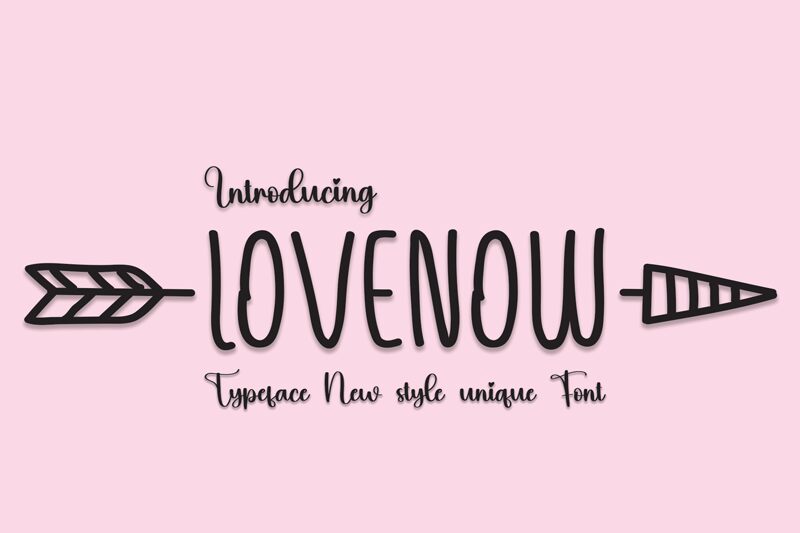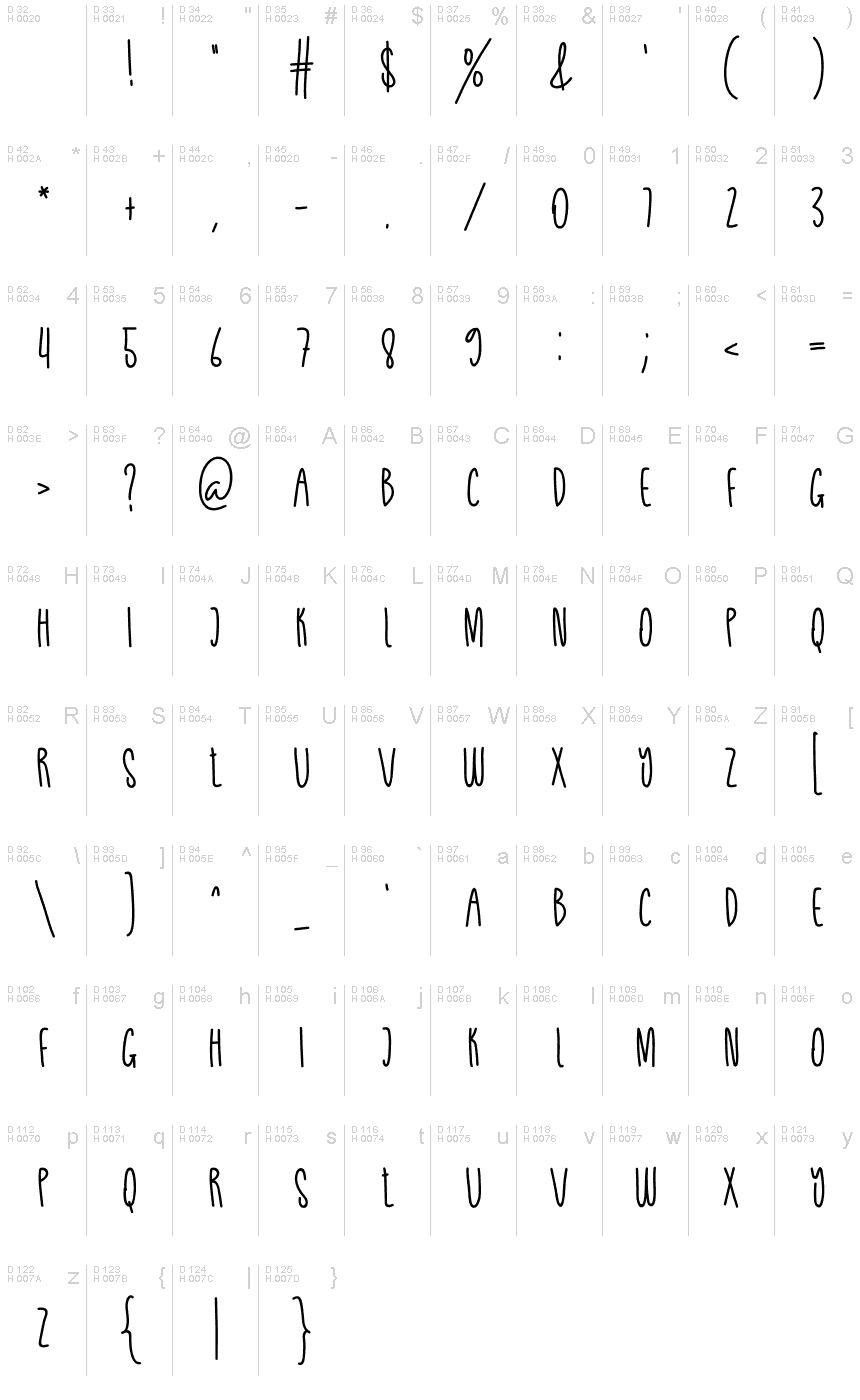
Lovenow
Lovenow, a font crafted by the innovative Scratchones, offers a fresh take on handwritten aesthetics. With its semi-light weight and extra-condensed width, Lovenow brings a sense of intimacy and personal touch to any design. The delicate balance between casual charm and refined elegance makes it an exceptional choice for projects that require a bespoke feel.
The font's lean and elongated characters possess an understated aesthetic appeal that works wonderfully across various applications. From heartfelt invitations to boutique branding or personalized stationery, Lovenow's style infuses each project with an authentic handwritten essence that is both inviting and exclusive.
Embrace the versatile nature of Lovenow for your next creative endeavor, where its unique characteristics promise to add character and distinction. Whether you're aiming for subtlety or impact, this font is tailored to make your message resonate with a stylish flair that is both contemporary and timeless.